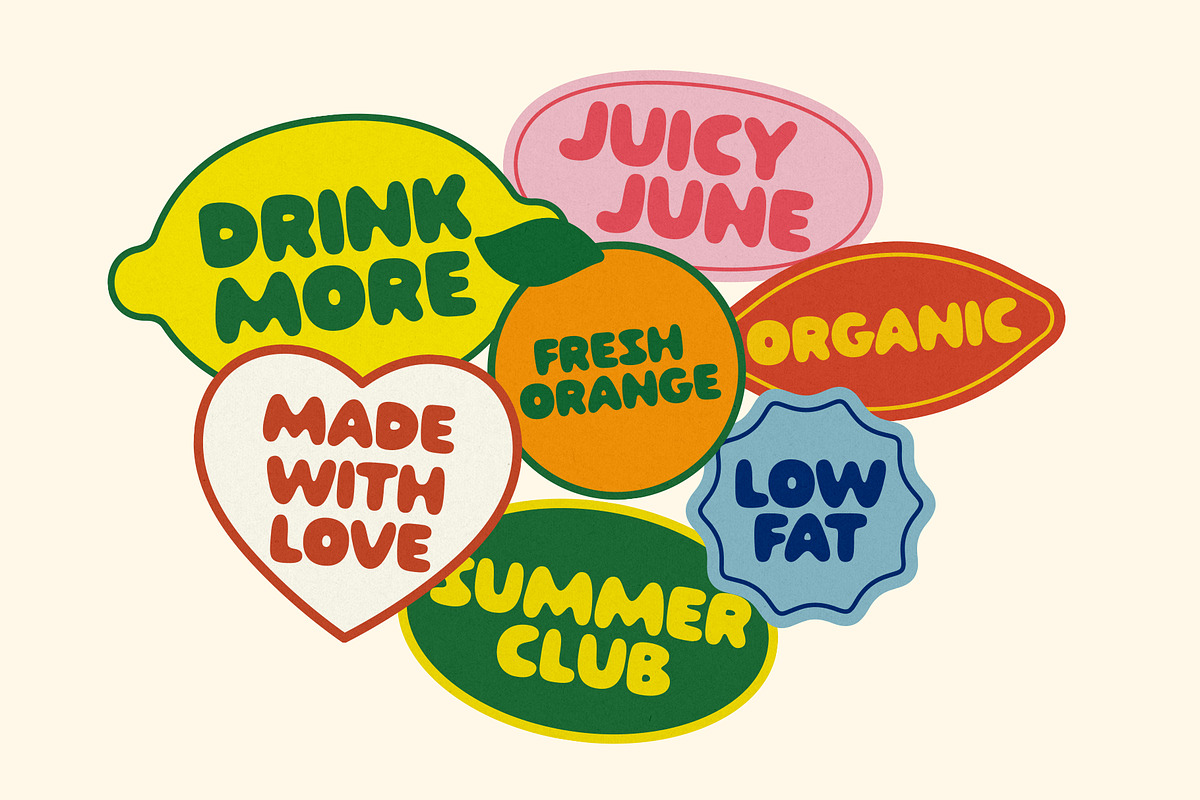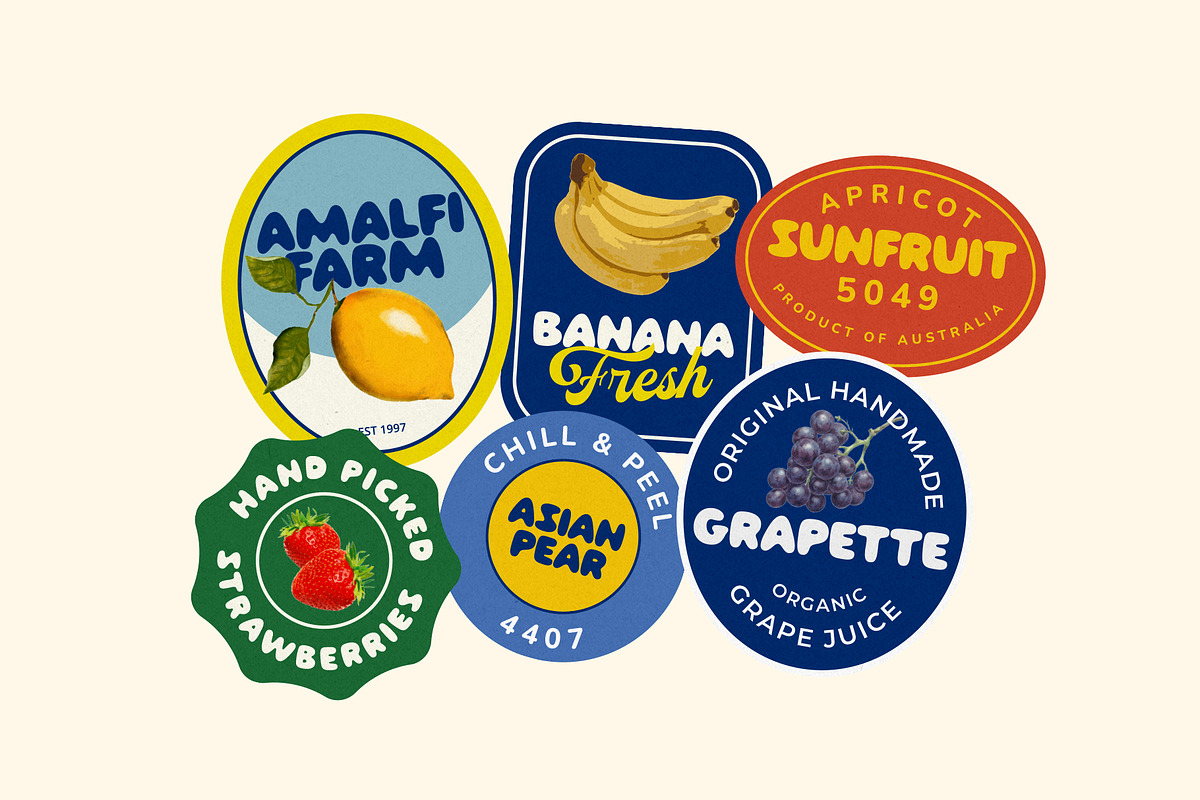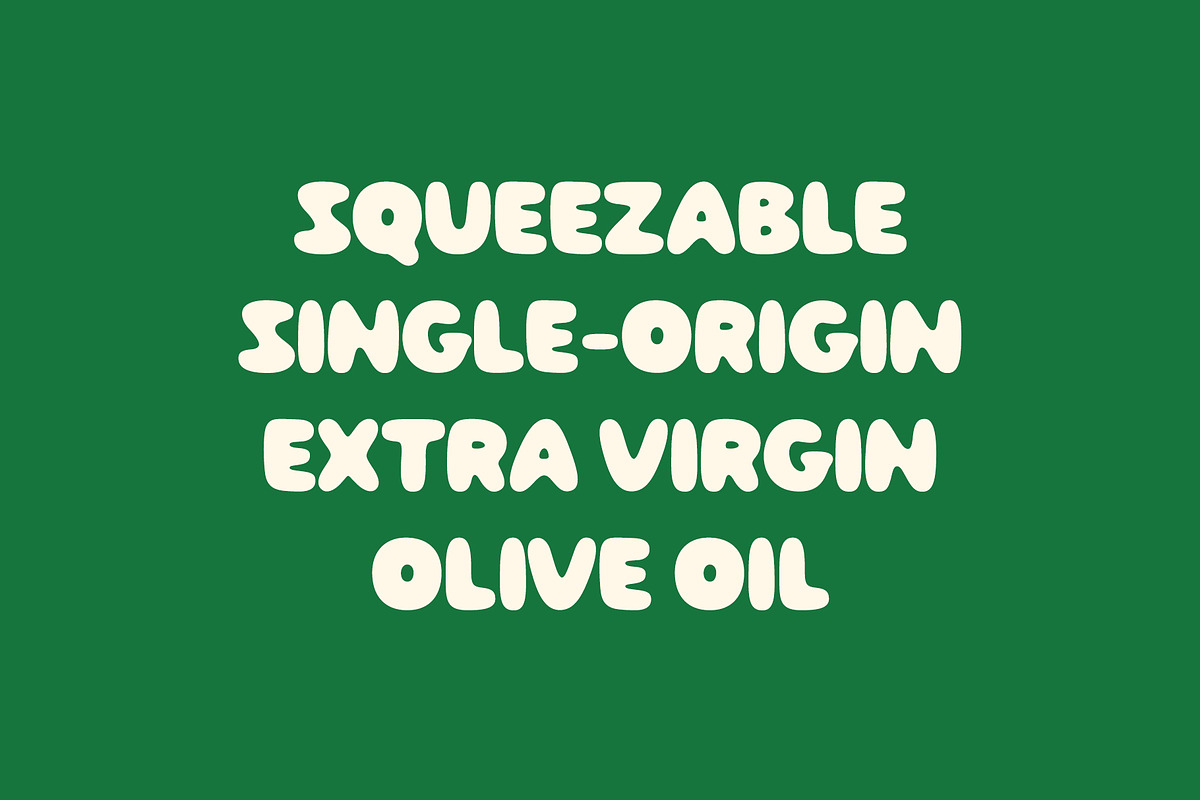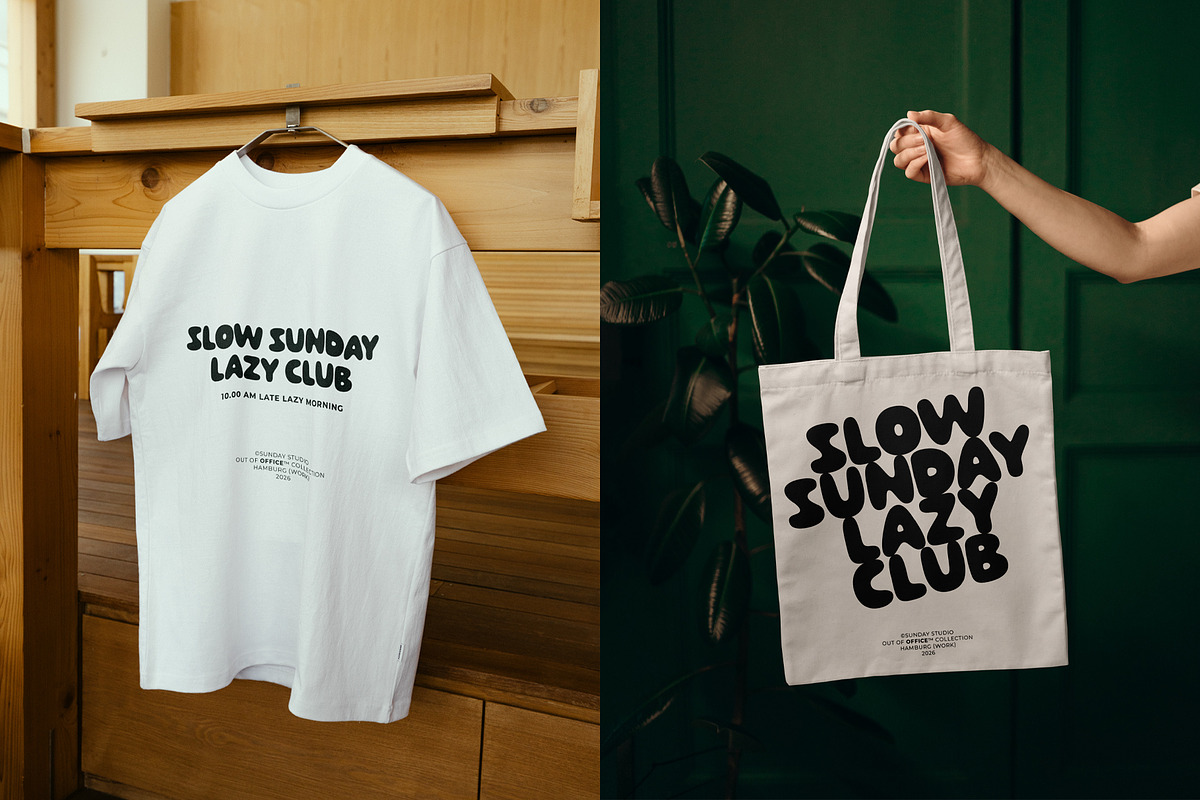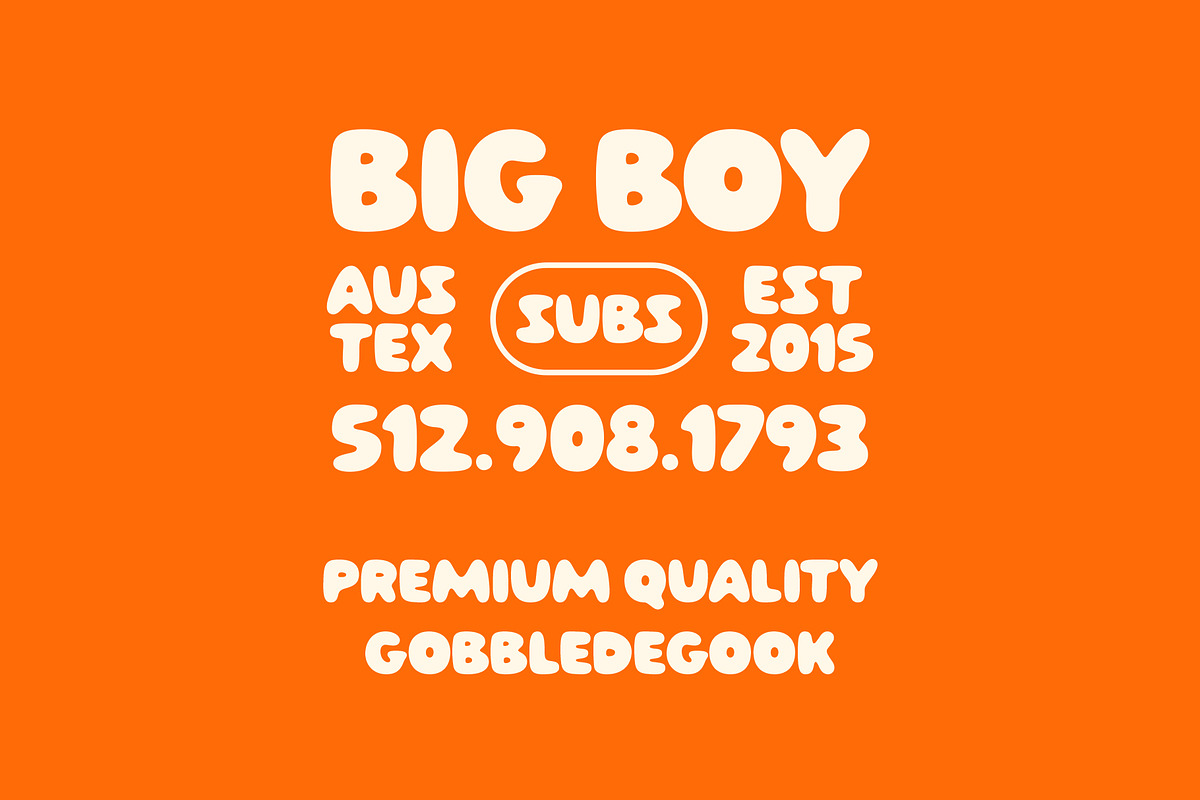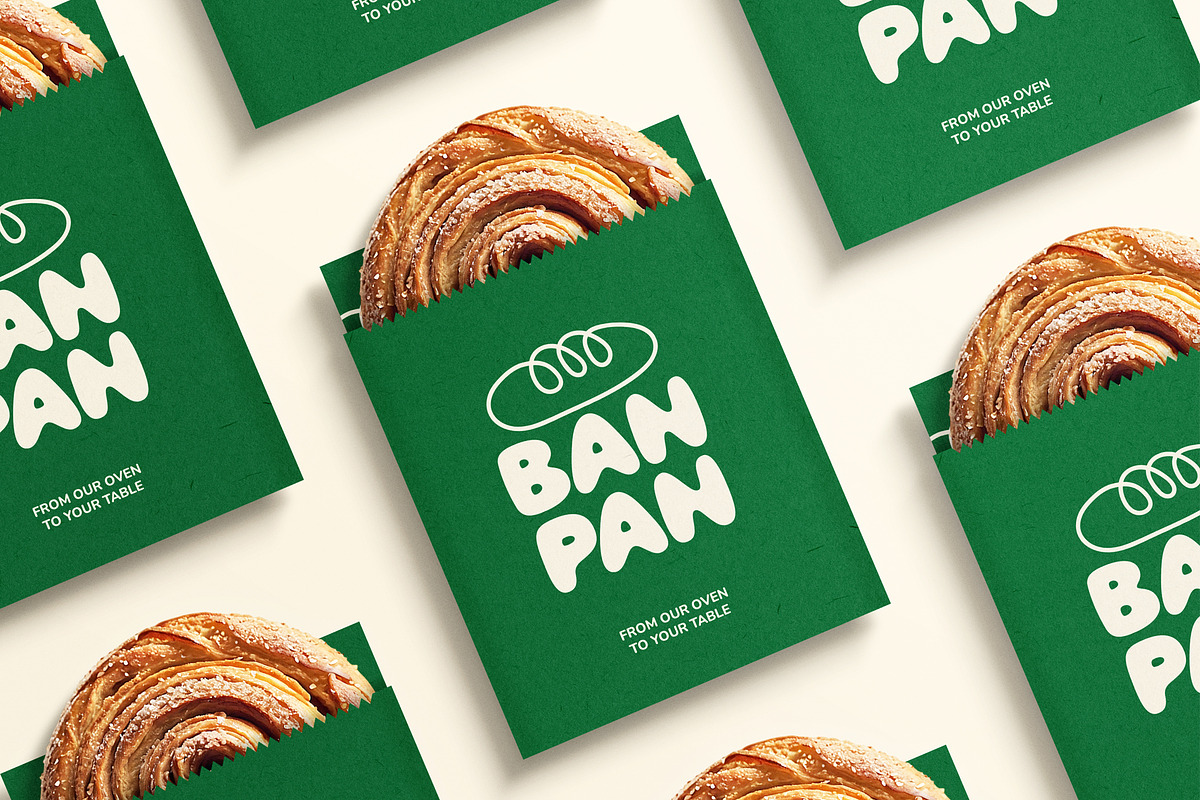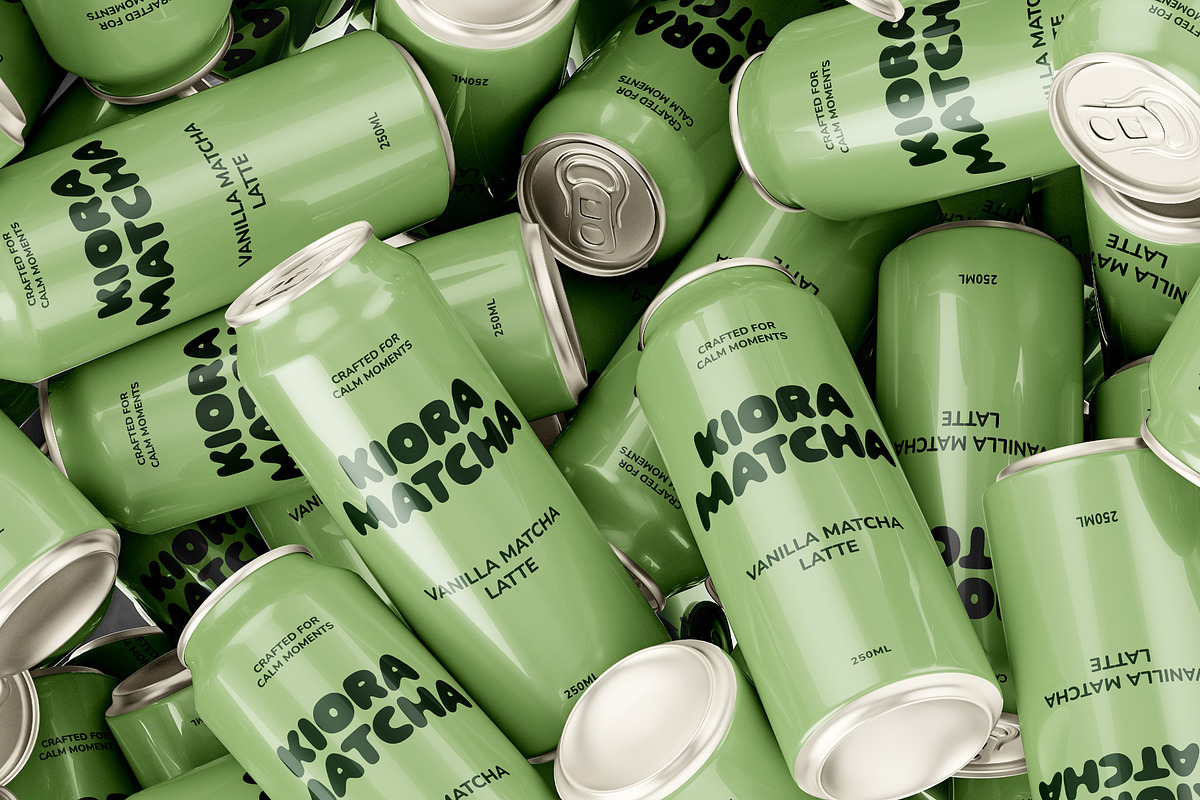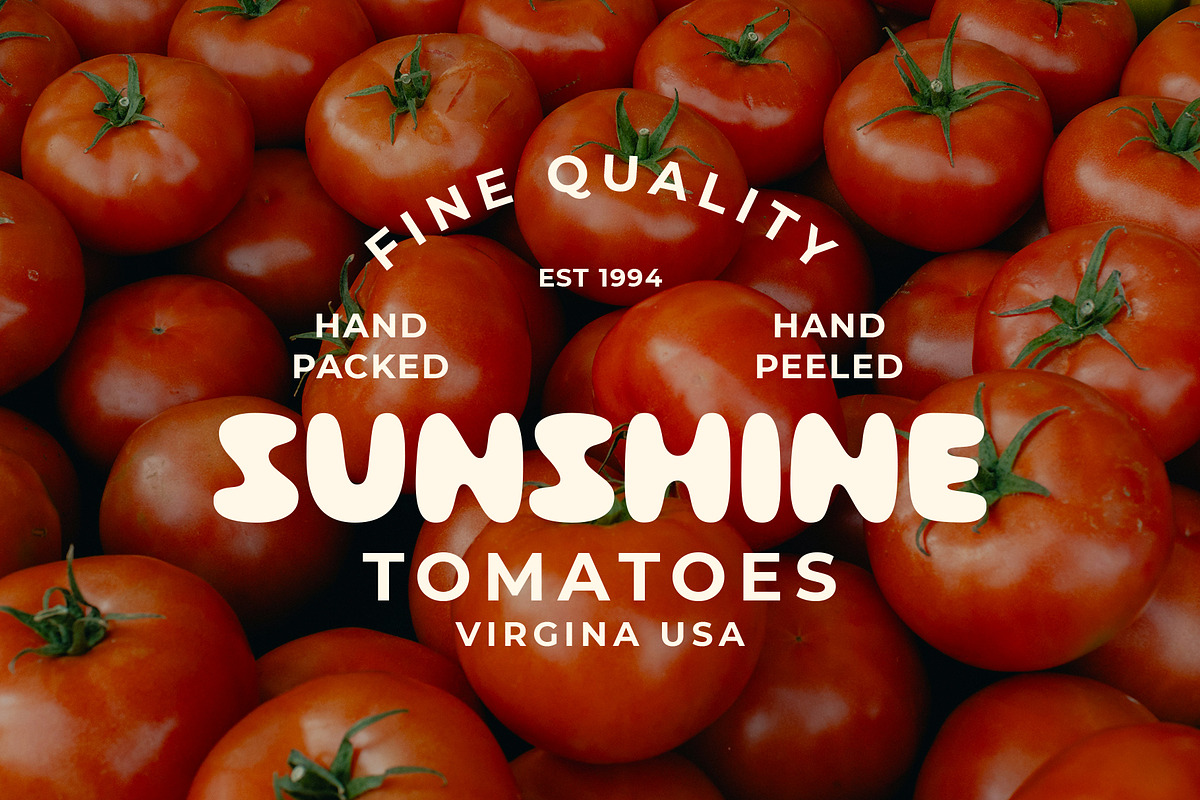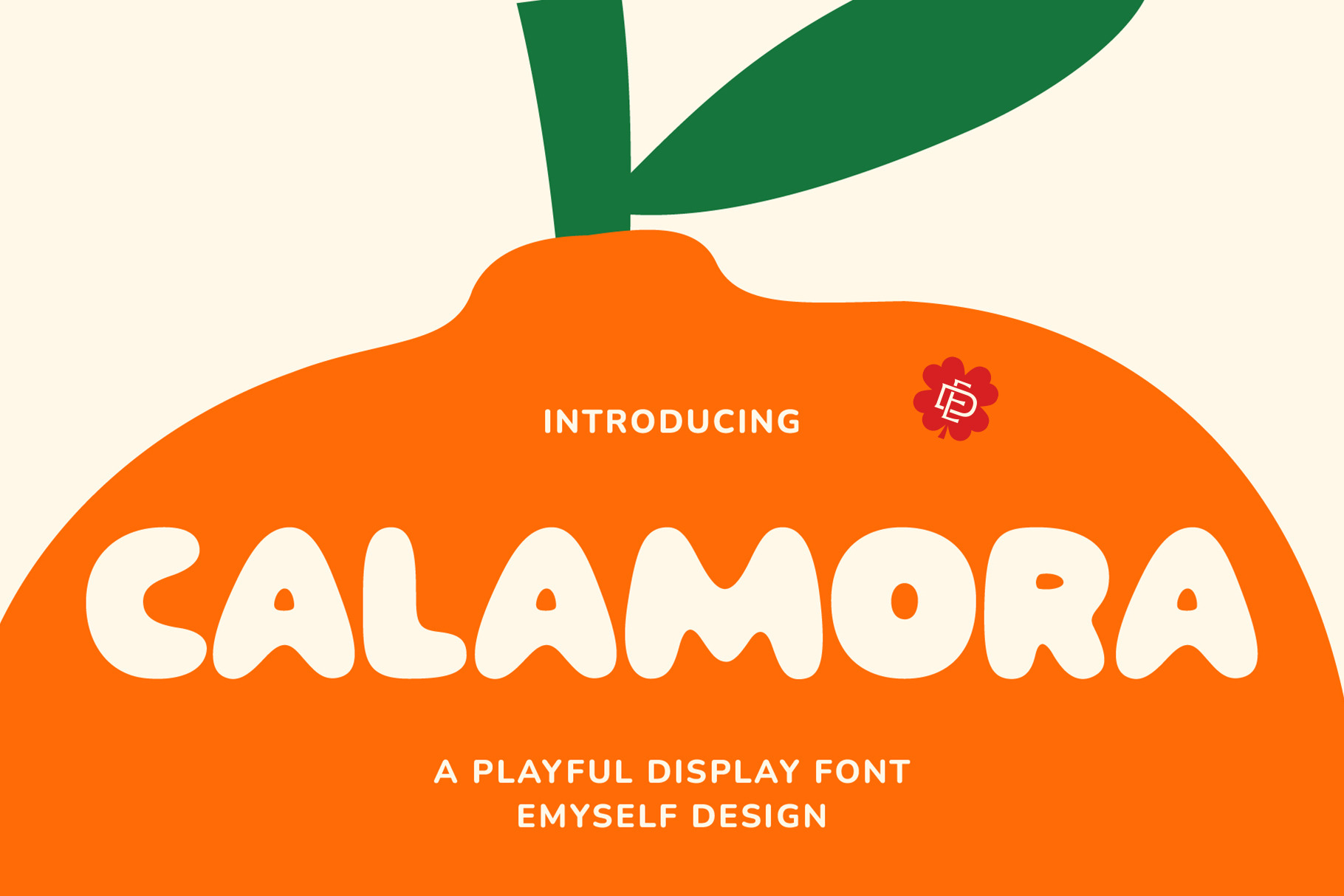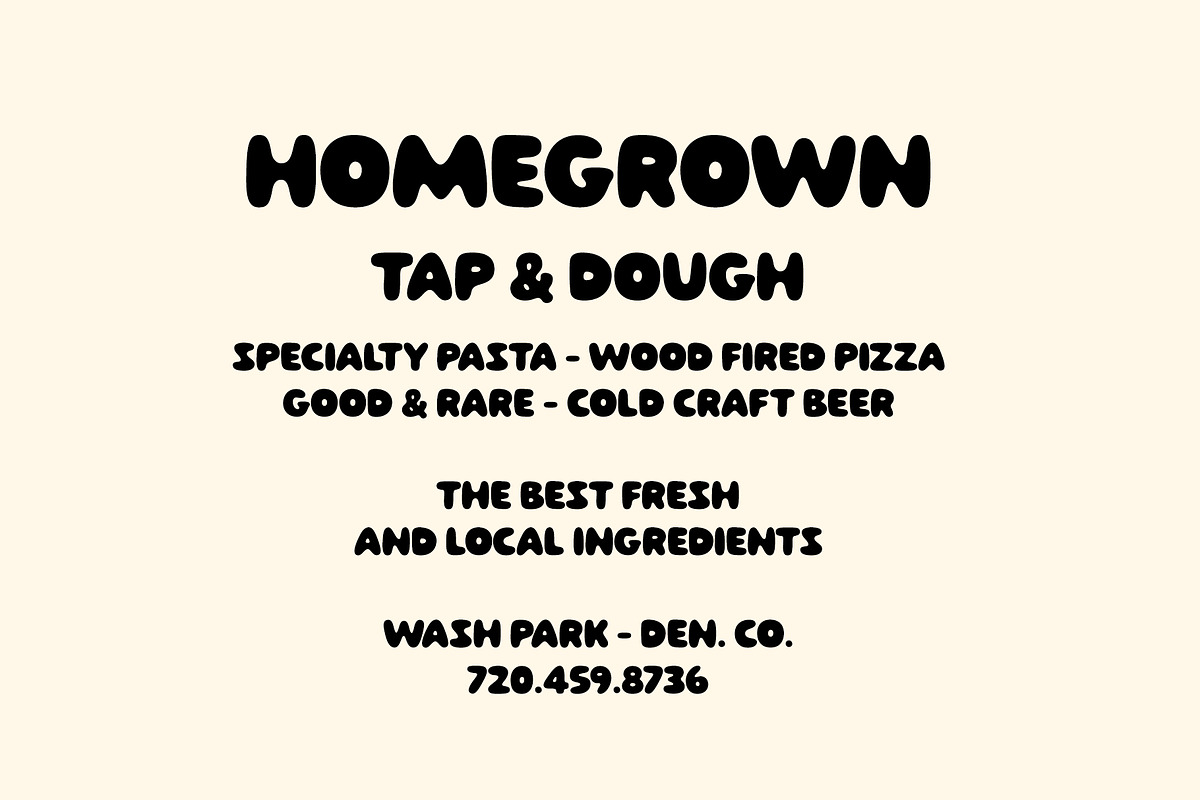
ED Calamora - Playful Display Font
Say hello to ED Calamora, a playful display font that brings warmth, personality, and a delightful handcrafted feel to every design. With its soft rounded edges, bold chunky shapes, and playful character, ED Calamora instantly creates a friendly and approachable look while remaining eye-catching and memorable.
Inspired by fresh, vibrant branding and fun packaging, this typeface is designed to make your headlines pop. Whether you're creating a whimsical logo, a colorful product label, or bold social media graphics, ED Calamora delivers a unique visual identity that feels both modern and inviting.
Its smooth curves and slightly organic letterforms make every word feel soft, joyful, and full of character—perfect for brands that want to stand out with a fresh and playful personality.
This font is perfect for Logos & Brand Identity, Product Packaging, Apparel & Merchandise, Social Media Content, Posters & Headlines, Food & beverage branding, and so much more
Bold, chunky, soft-rounded display style
Playful bubble-like letterforms with a friendly, modern feel
Excellent readability even at large display sizes
Uppercase-focused design with consistent, punchy rhythm
Great pairing potential with clean sans-serif body fonts